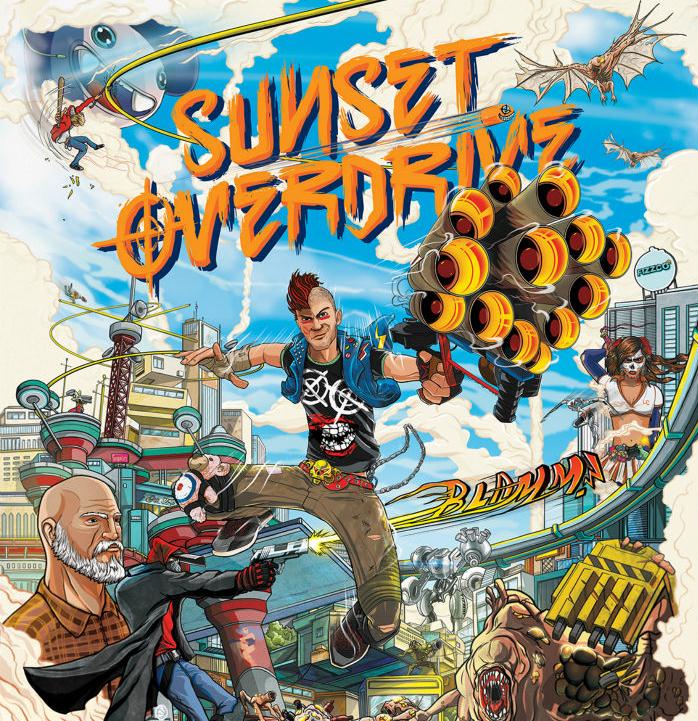
Sunset Overdrive Font
ActionSunset Overdrive is an action-packed open-world video game developed by Insomniac Games. The game features unique and fast-paced gameplay, vibrant graphics, and a satirical take on corporate culture.
The game's logo font resembles Overdrive Sunset, a script brush font created by Nal and inspired by the game's design. This font is available as a free download for both personal and commercial use in the Fonts Used Section.